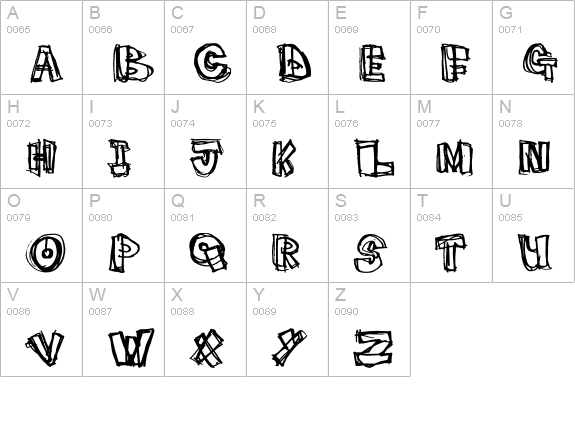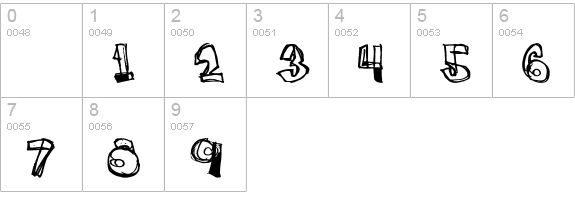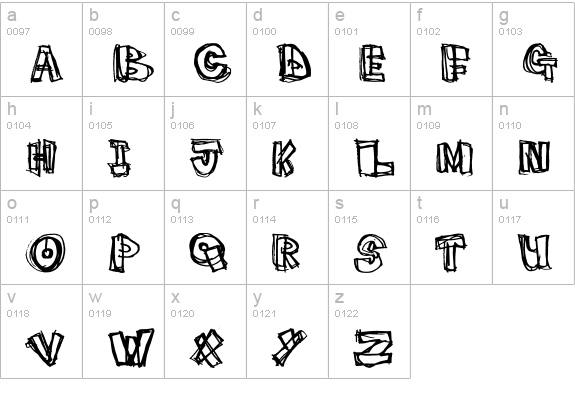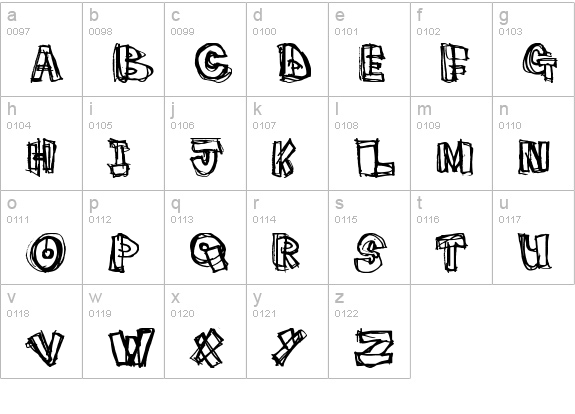
pigeon_snatch Font Details
Introducing pigeon_snatch font, a truly captivating typeface that effortlessly combines elegance and playfulness. This font is a true gem for any design project, whether you're working on a logo, branding materials, or a creative display. With its charming curves and unique letterforms, pigeon_snatch font adds a touch of whimsy to any composition. Its versatility allows it to be used in a wide range of contexts, from vintage-inspired designs to modern and minimalist layouts. But what makes pigeon_snatch font even more special is that it is absolutely free! Yes, you read that right. This stunning font is freely available to download at FontsMarket.com. Now, you can enhance your designs with this remarkable typeface without any cost or restrictions. Designed with meticulous attention to detail, pigeon_snatch font offers a wide array of characters, including uppercase letters, lowercase letters, numerals, and punctuation marks. Each glyph is carefully crafted to ensure clarity and legibility, making it a breeze to read even at smaller sizes. Whether you're a professional designer or a hobbyist, pigeon_snatch font is a must-have addition to your font collection. Its versatility, uniqueness, and the fact that it is free make it an irresistible choice for any project. So why wait? Head over to FontsMarket.com and download pigeon_snatch font today. Elevate your designs with this captivating typeface and watch them come to life with a touch of whimsy and elegance.